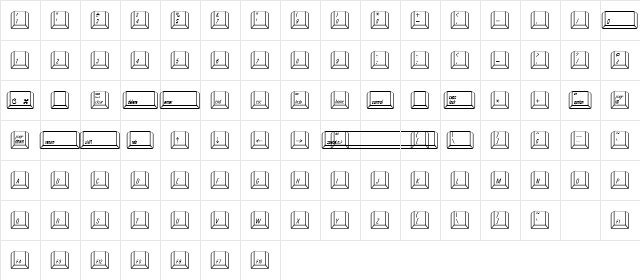
Qwerty Mac
Design Context for Qwerty Typeface
Qwerty is a composed and adaptable typeface that performs quietly and consistently across a wide range of design contexts.